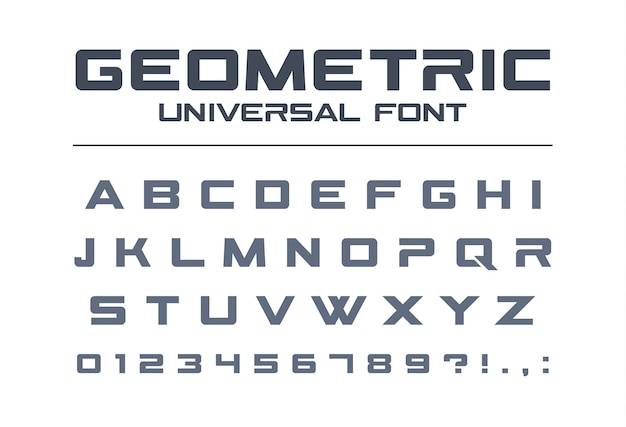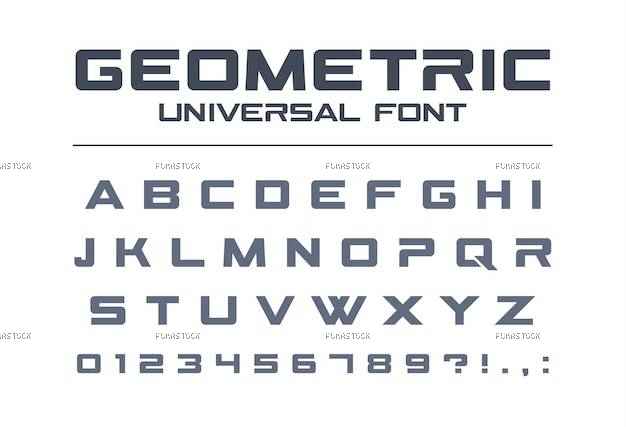
Geometric universal font. technology, sport, futuristic, future techno alphabet. letters and numbers for military, industrial, electric car racing logo . modern minimalistic typeface